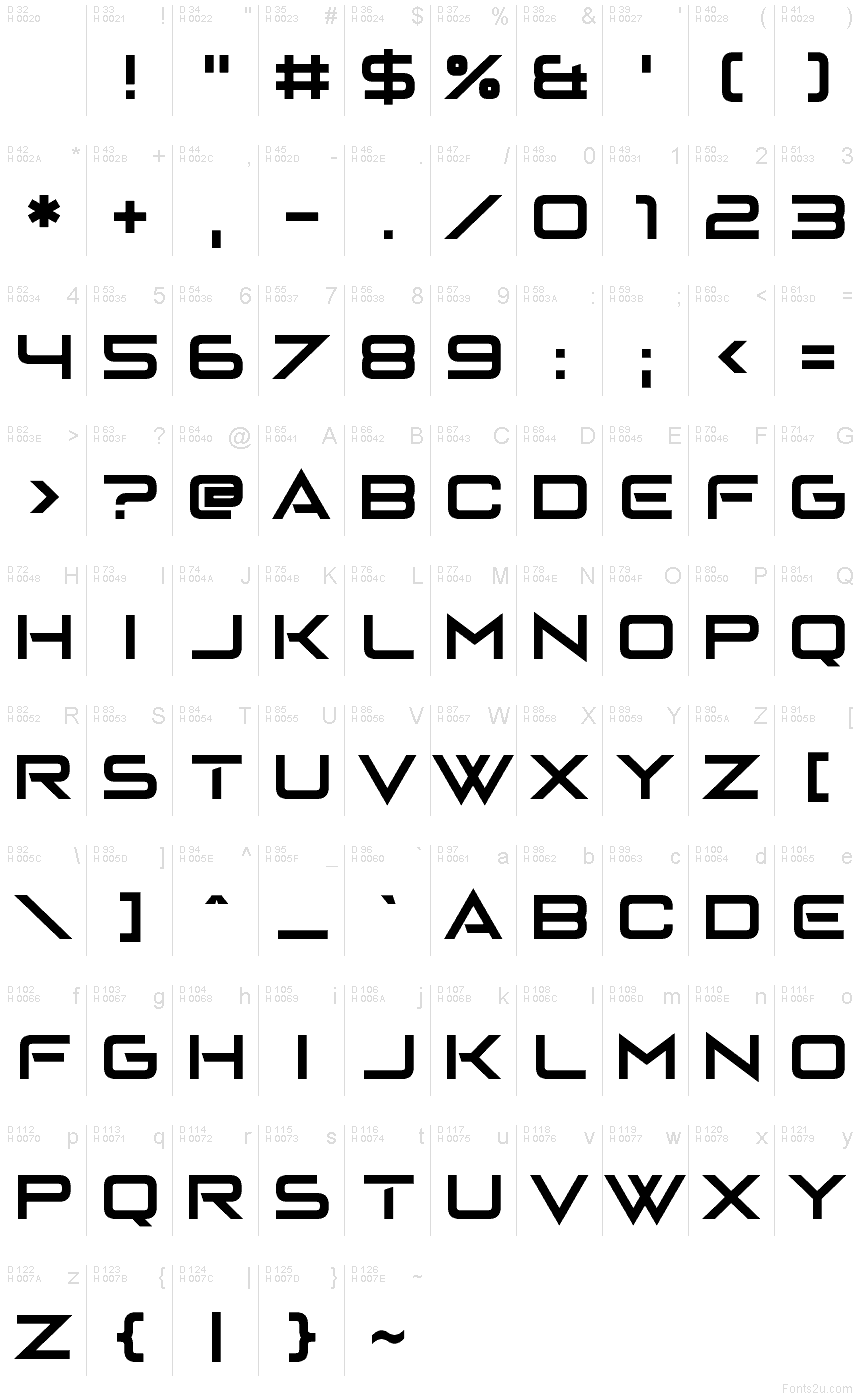
Spiced Rum Supernova Straight
Spiced Rum Supernova Straight font by Chequered Ink is a free techno display font with an expanded style. The futuristic and geometric characters reflect the angular and modern styles often used in technological designs. Visually, the smooth flowing lines add to the sleek and uniform appearance of this typography.
Use it on posters, book covers, packaging boxes, branding projects, infographics, landing pages, slideshows, and banners related to technology or recent innovations. Additionally explore it in titles for games or on-wall artwork at shows as both design aesthetic appeal while grabbing attention instantly!